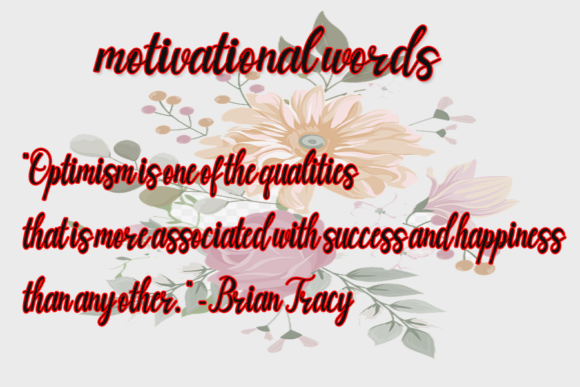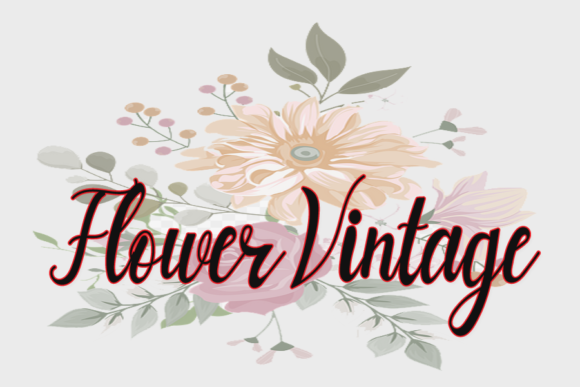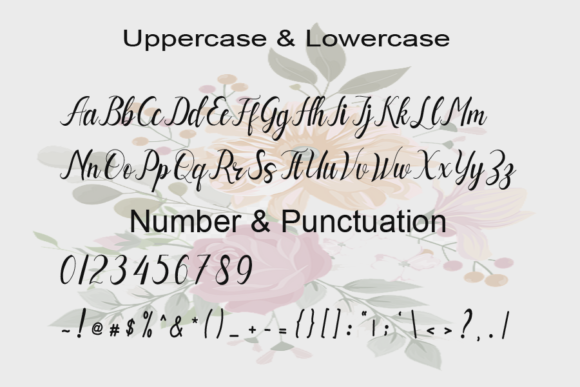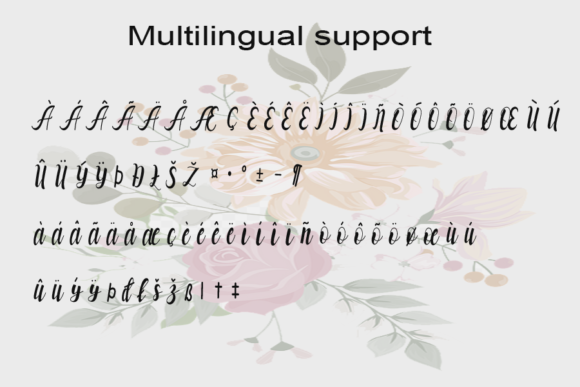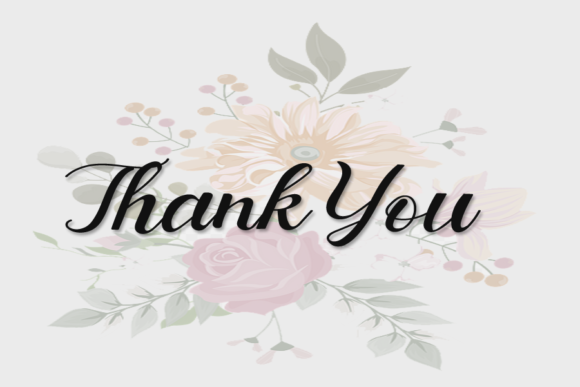
About Endank Sono Font
Endank Sono is a whimsical script font with a relaxed theme, featuring a lovely style. No matter the topic, this font will be an incredible asset to your fonts’ library, as it has the potential to elevate any creation